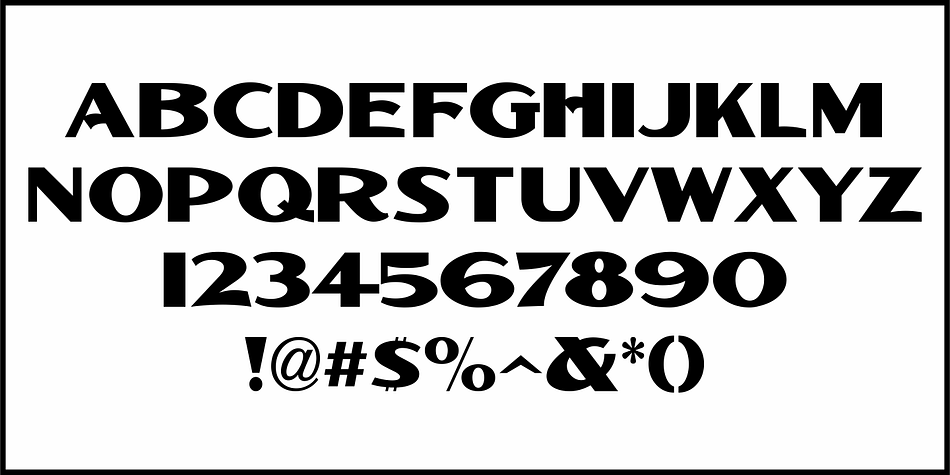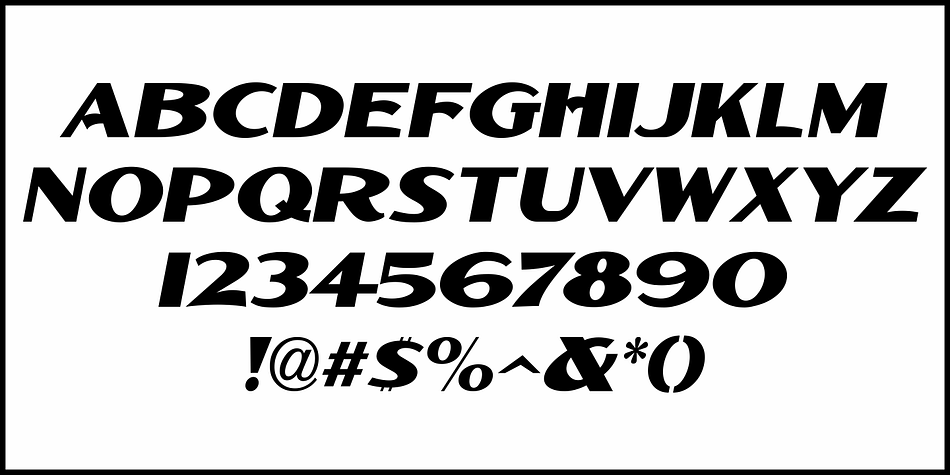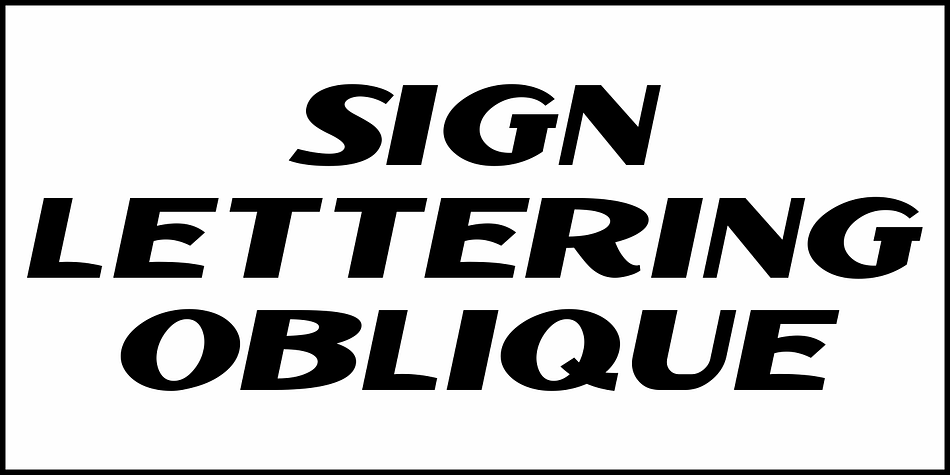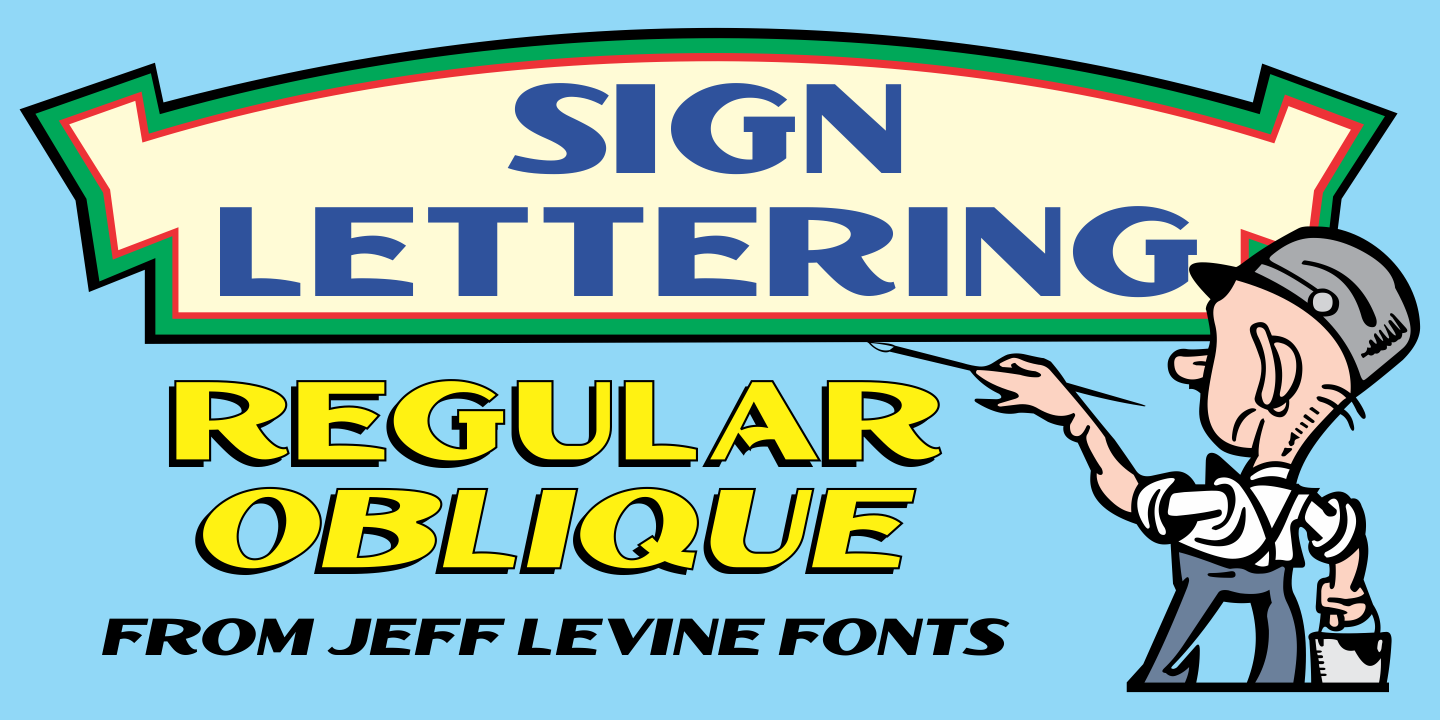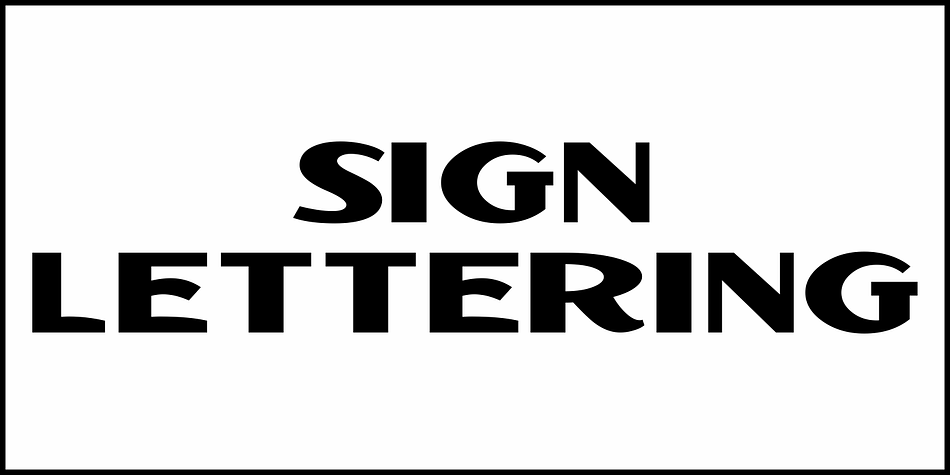
SIGN LETTERING JNL
Designed by Jeff Levine, Sign Lettering JNL is a display sans font family. This typeface has two styles and was published by Jeff Levine Fonts.
In the 1909 edition of the Atkinson Sign Painters’ instruction books is an extra bold sans serif alphabet and numerals called “Advertisers’ Thick and Thin Plug”.
This hand lettered display face is now available digitally as Sign Lettering JNL in both regular and oblique versions.